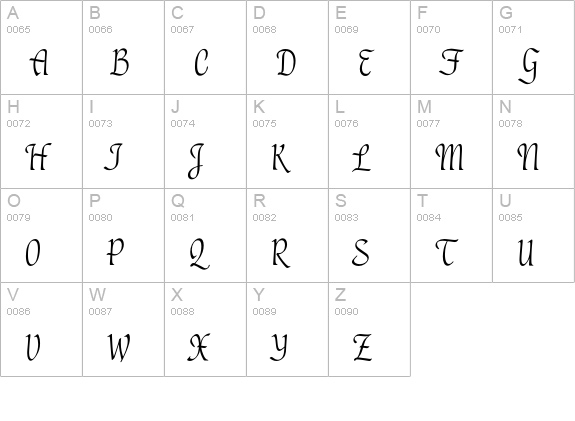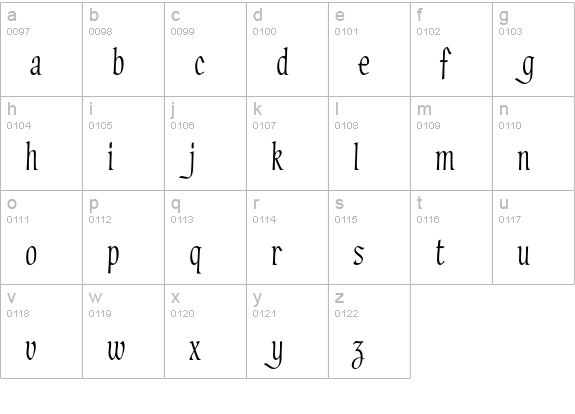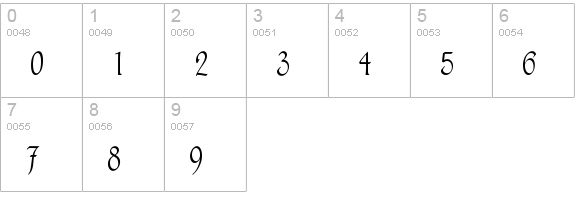
HadfieldEF Font Details
Introducing HadfieldEF, a stunning font that effortlessly combines elegance and versatility. With its clean lines and modern aesthetic, this typeface is perfect for a wide range of creative projects, including branding, logo design, advertising, and more. HadfieldEF is designed with attention to detail, ensuring that each character is well-crafted and visually appealing. Its balanced proportions and graceful curves give it a timeless appeal, making it suitable for both contemporary and classic designs. One of the most remarkable features of HadfieldEF is that it is available for free. Yes, you read that right! This remarkable font can be yours without spending a dime. You can easily download it at FontsMarket.com, a trusted platform that offers a vast collection of high-quality fonts for designers and typographers. Whether you're a professional graphic designer or an aspiring artist, HadfieldEF will undoubtedly elevate your work to new heights. Its versatility allows it to adapt to various design styles and projects, making it an indispensable tool in your creative arsenal. With HadfieldEF, you can effortlessly create captivating headlines, eye-catching posters, stylish invitations, and so much more. Its legibility and distinct personality will grab the attention of your audience and leave a lasting impression. So why wait any longer? Visit FontsMarket.com today and download HadfieldEF for free. Unleash your creativity and let this remarkable font be the centerpiece of your next project. You won't be disappointed with its exceptional quality and endless possibilities.